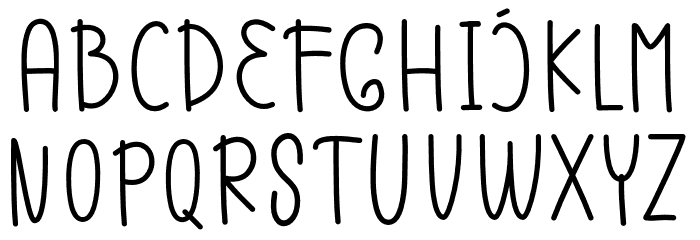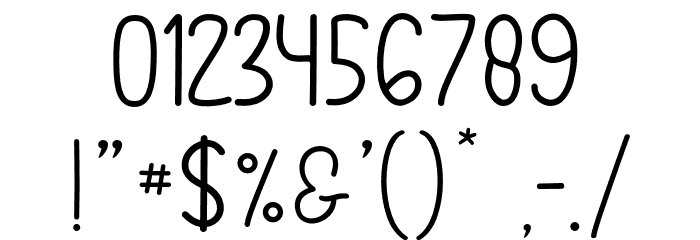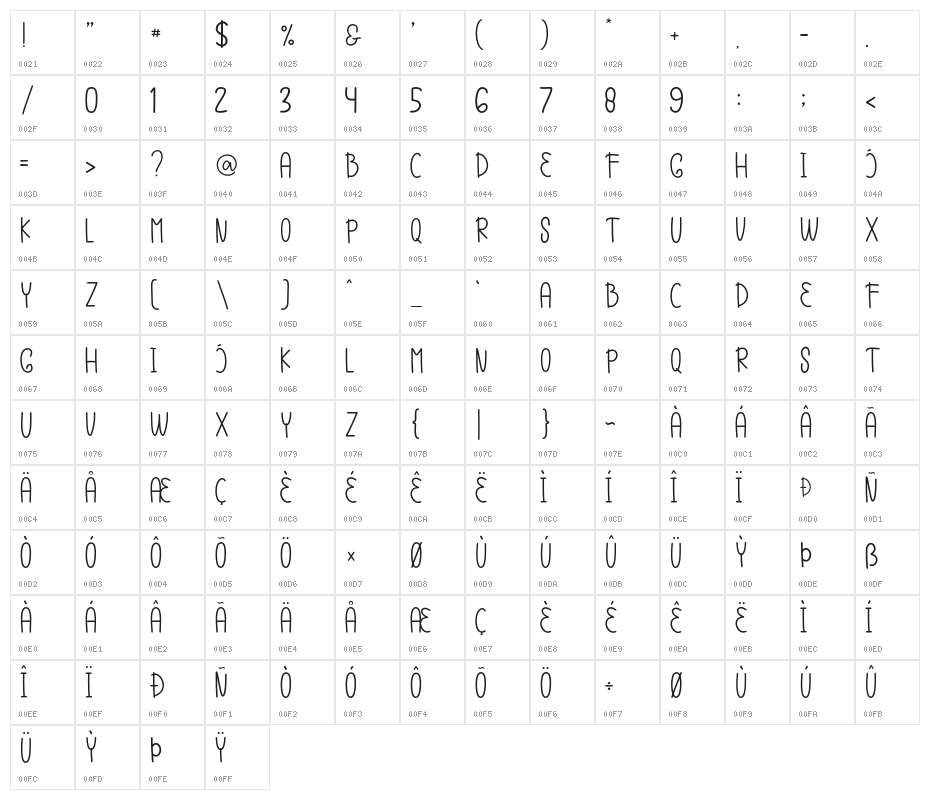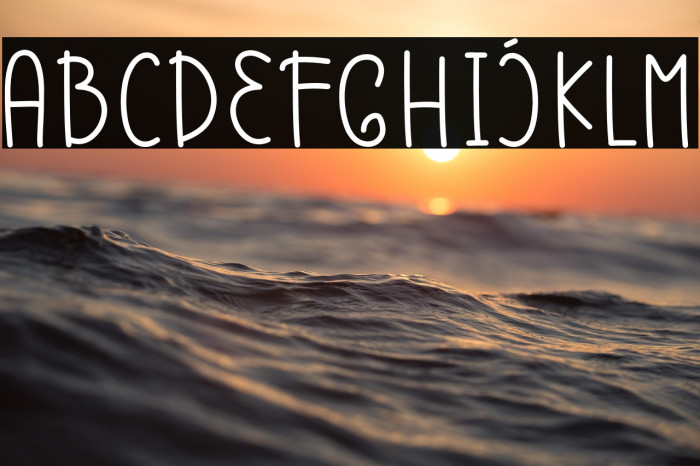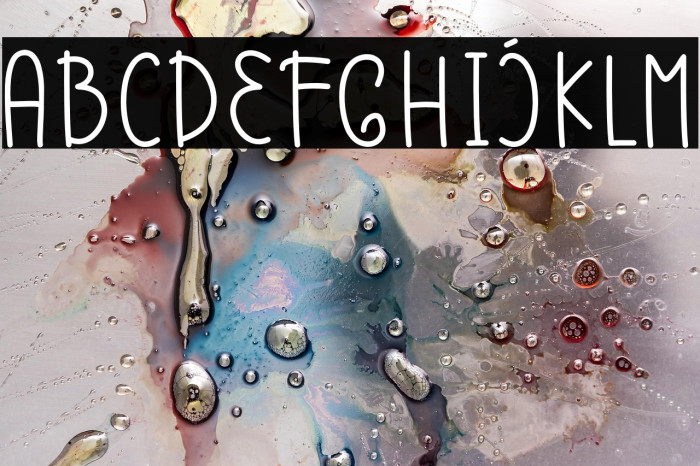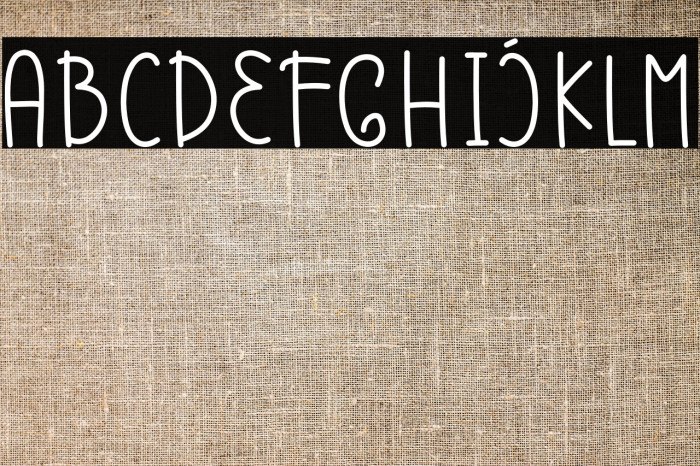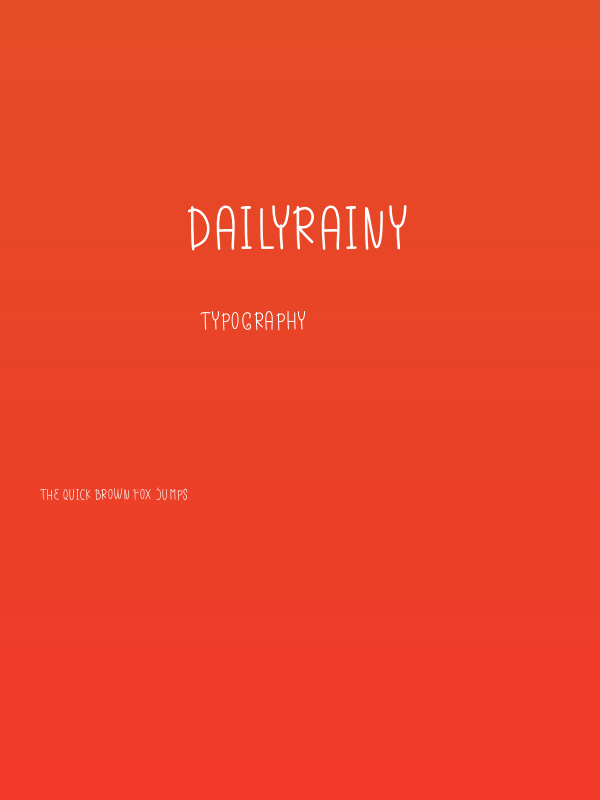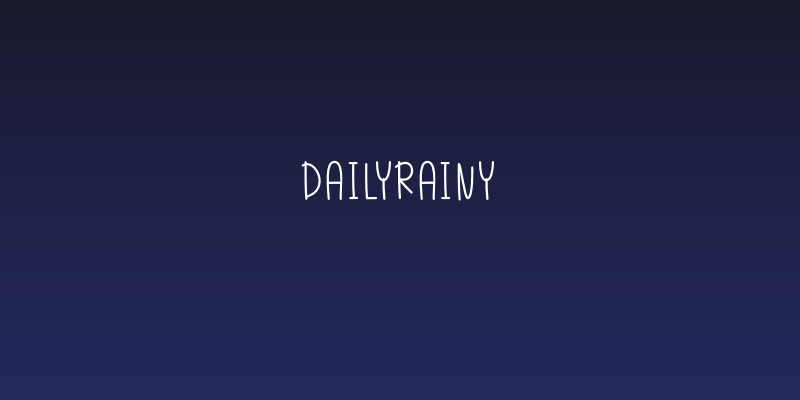
DailyRainy Font
This font features a playful and whimsical style with tall, narrow characters that have a hand-drawn appearance. The strokes are consistent in width, giving it a uniform look, while the rounded edges add a friendly and approachable feel. The uppercase and lowercase letters maintain a consistent height, which contributes to its clean and organized appearance. The numerals and special characters are designed to match the overall style, ensuring a cohesive look across all text elements. This font is ideal for projects that require a casual and inviting tone.
A playful, hand-drawn font with tall, narrow characters and rounded edges.
- Font: DailyRainy
- Proposed Projects: Great for children's books, greeting cards, playful branding, and casual invitations.
- Category: Handwritten
- Overall Style: Playful
- Use Case: Headlines, Logos, Casual Text